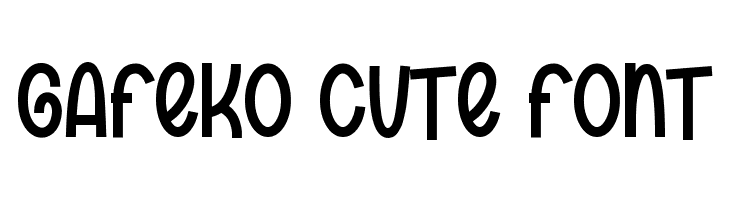
A playful, bold font with rounded, bubbly characters.
A playful and whimsical font with rounded and angular elements, perfect for fun and creative projects.
A bold, playful handwritten font with a bubbly, cartoon-like style.
A playful, rounded font with a whimsical and friendly aesthetic.
A bold, bubbly, and playful font with a whimsical and lively appearance.
A playful and whimsical font with rounded, friendly letterforms.
A playful, handwritten font with a friendly and whimsical style.